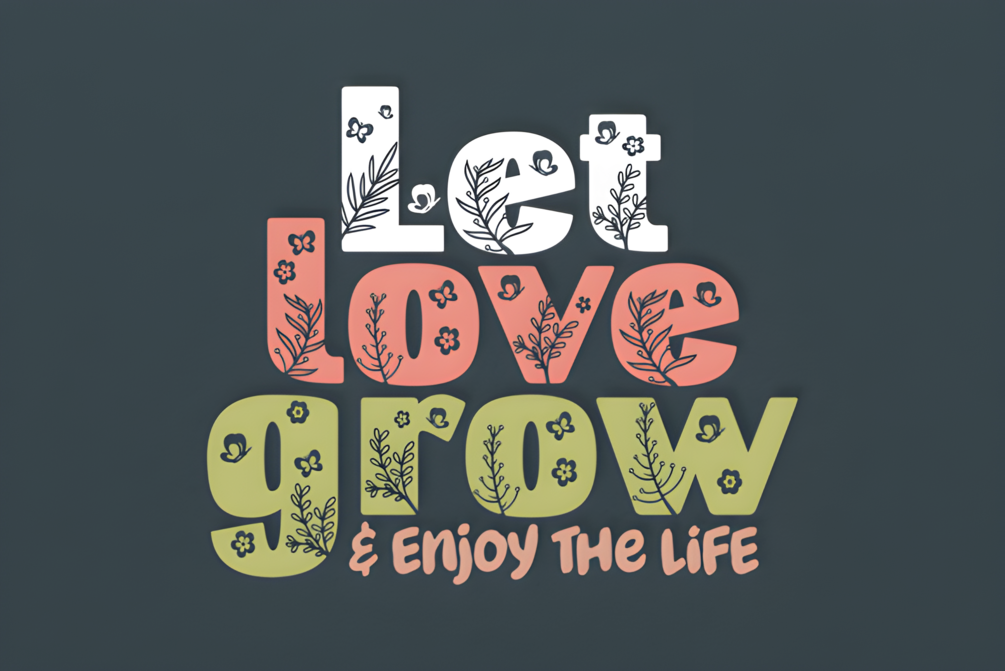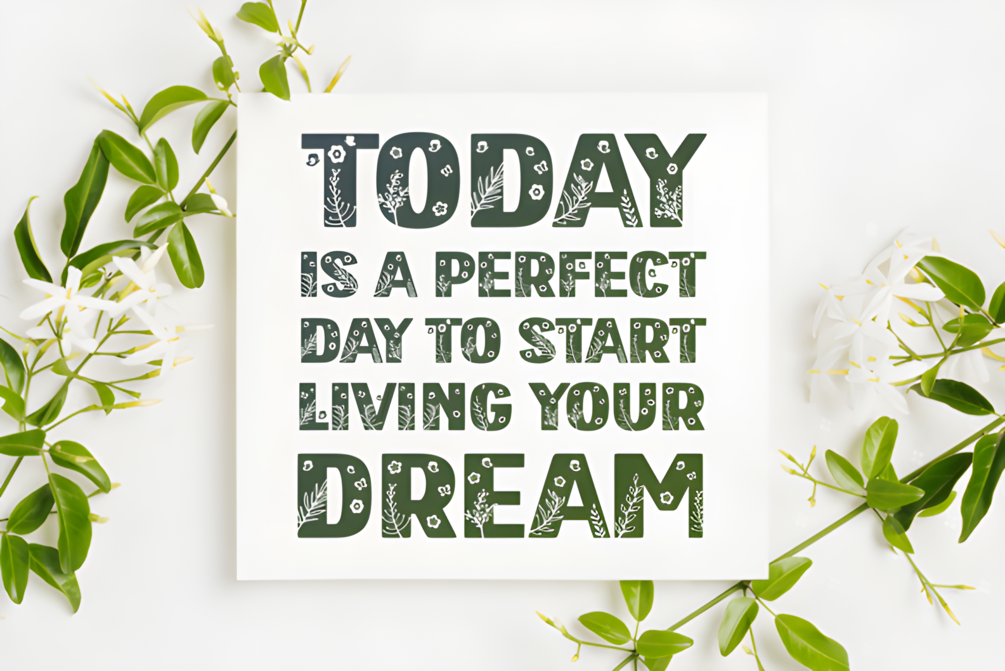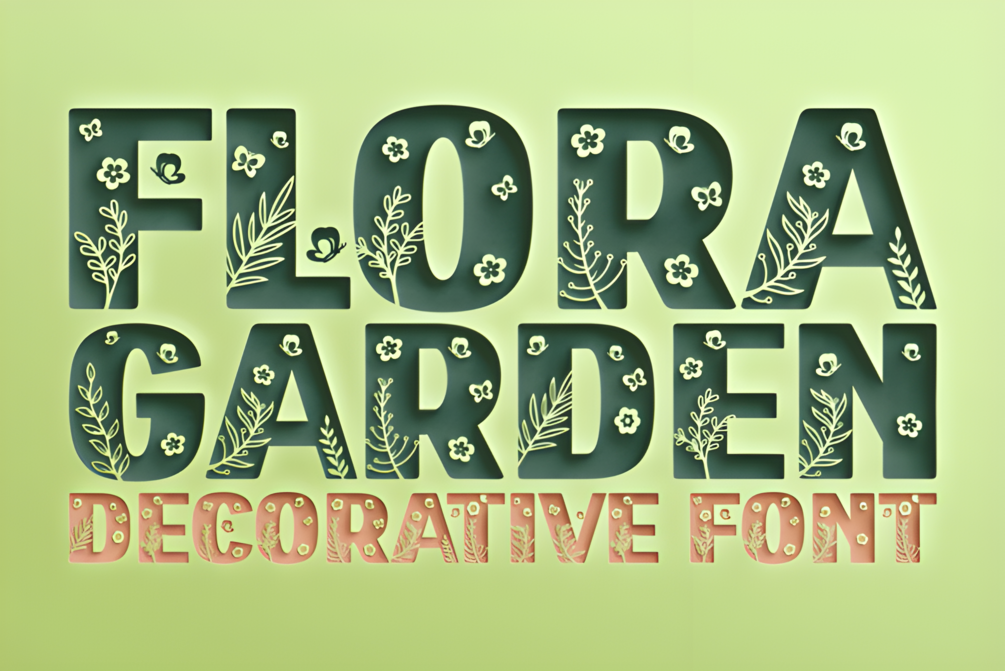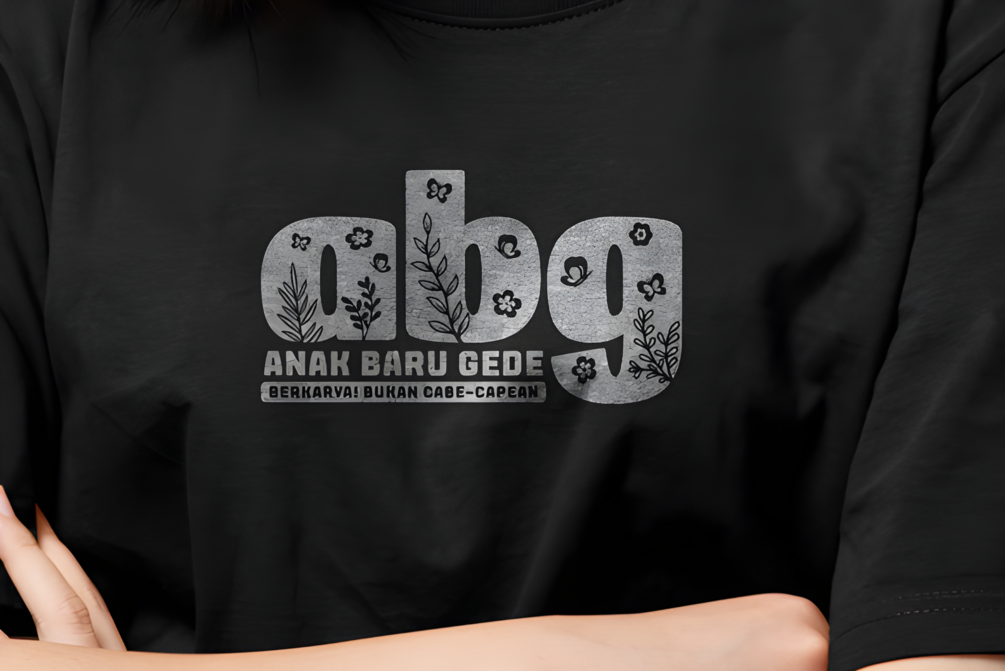
Flora Garden Font
Introducing Flora Garden, a stunning and stylish decorative font that transforms your creative projects into masterpieces. With its chic and elegant design, this font is perfect for adding a touch of sophistication to any topic.
Flora Garden isn't just a font; it's an incredible asset that elevates your designs effortlessly. Whether you're crafting invitations, branding materials, or digital art, this lovely font will take your creations to the next level.
Discover Flora Garden, a chic and elegant decorative font perfect for enhancing any project. This stunning font effortlessly elevates your designs, making it an essential addition to your fonts’ library. Transform your creations with Flora Garden today!